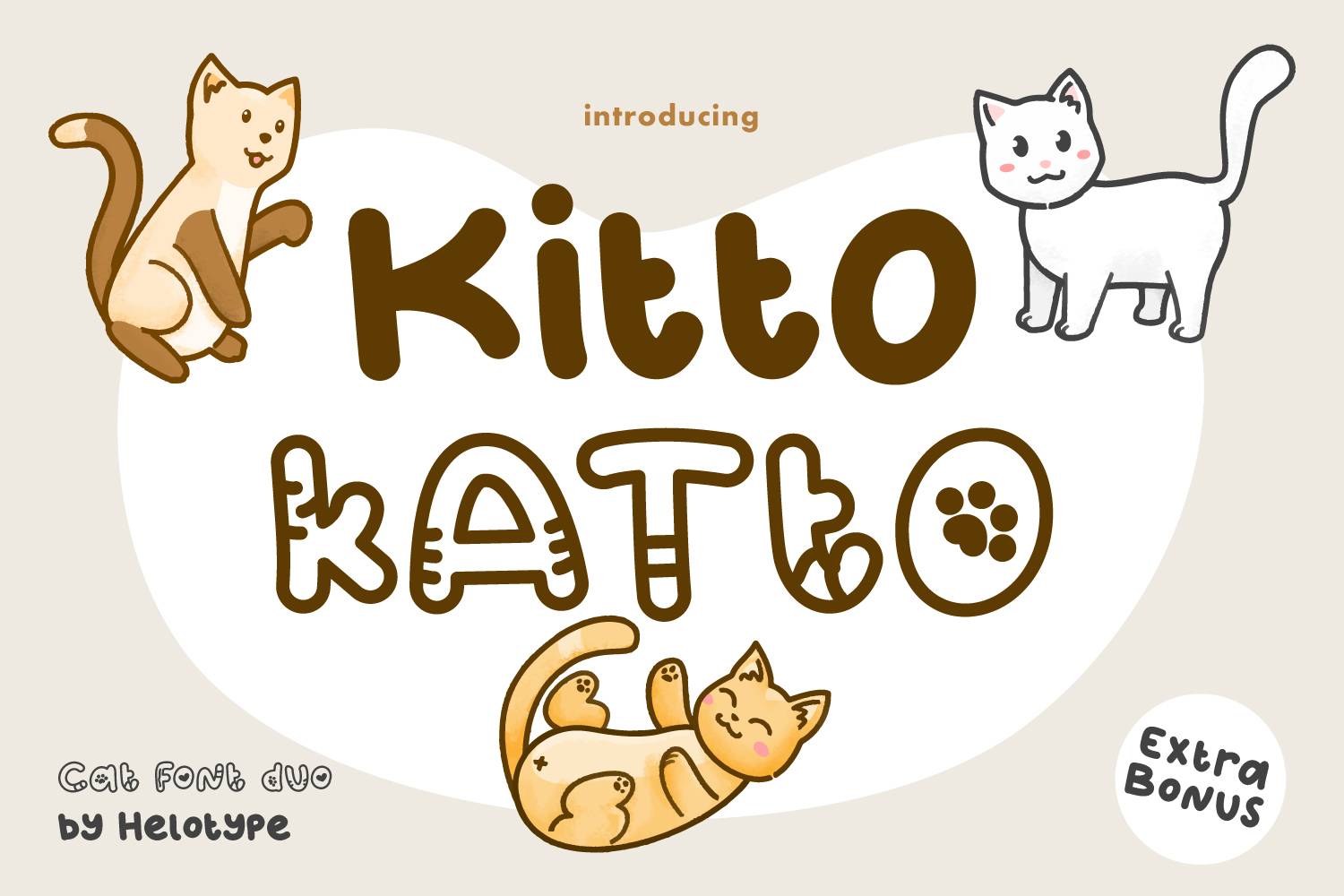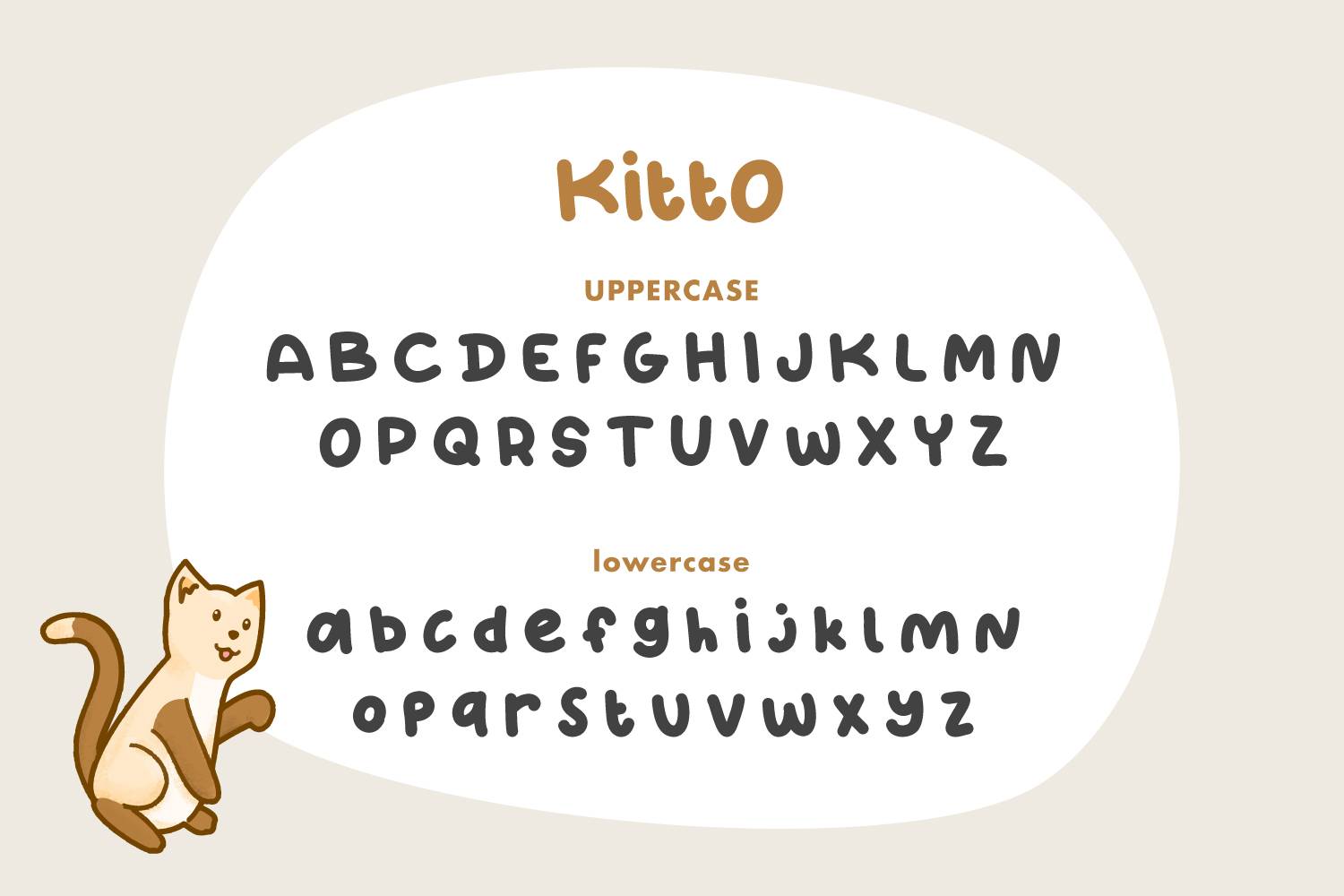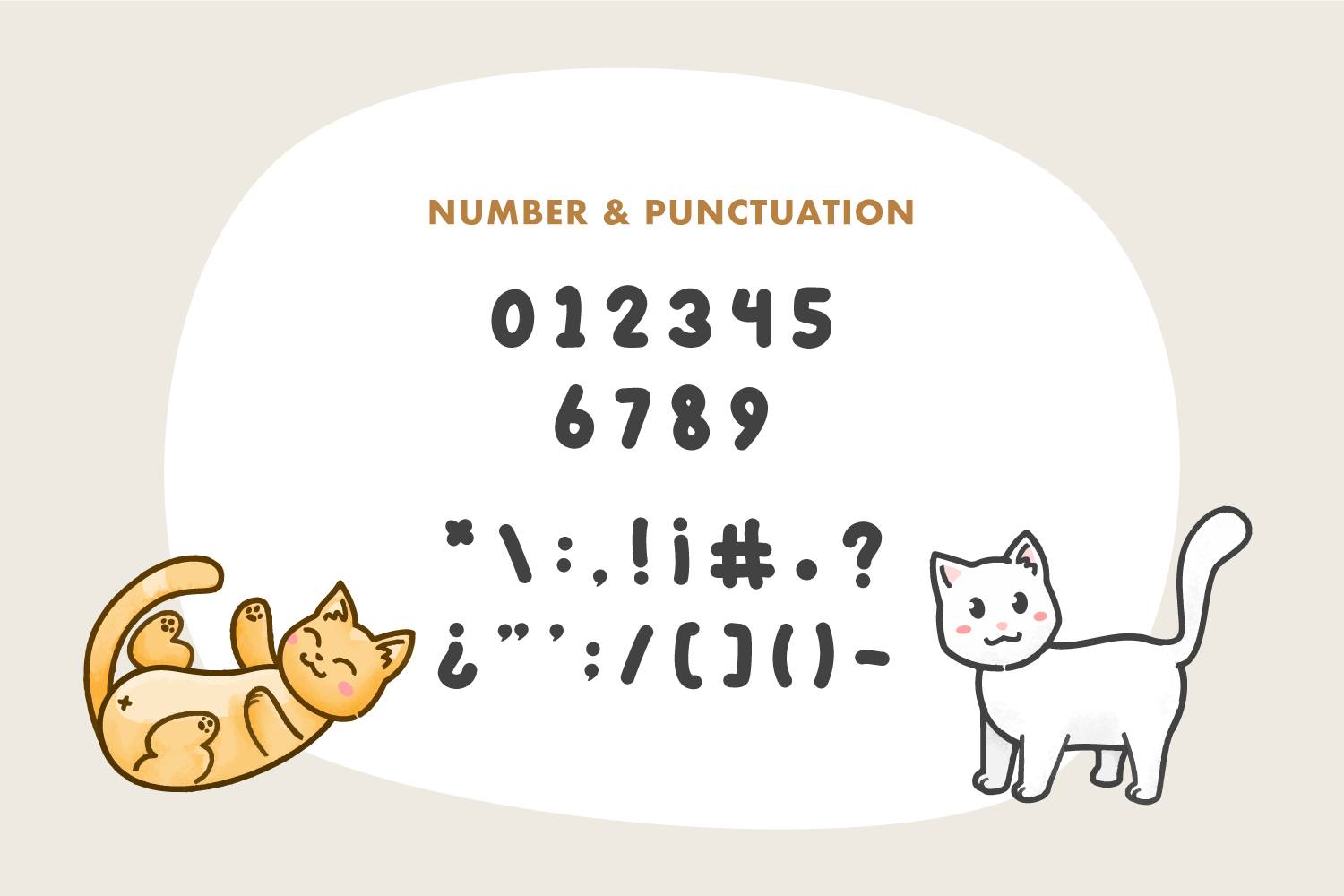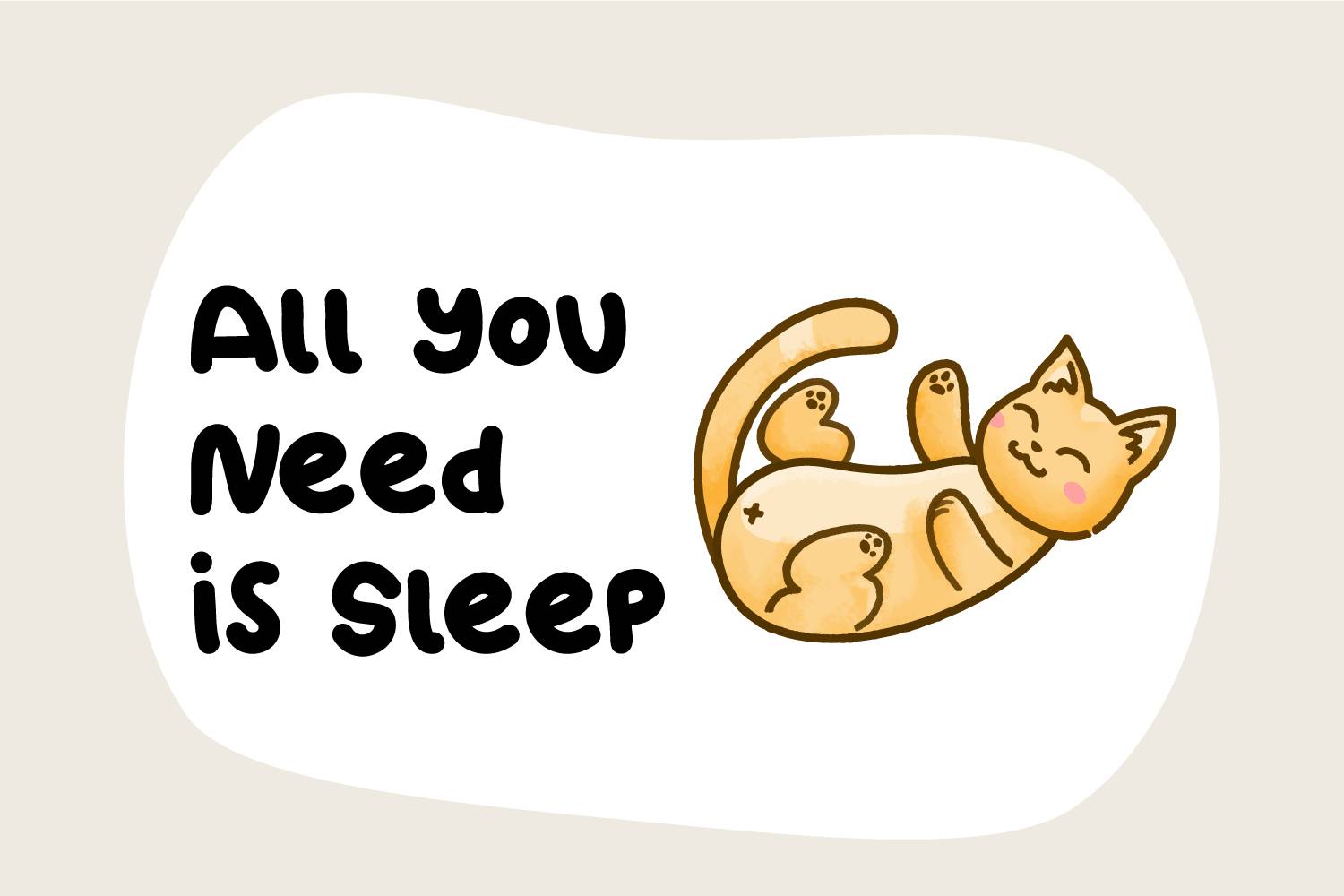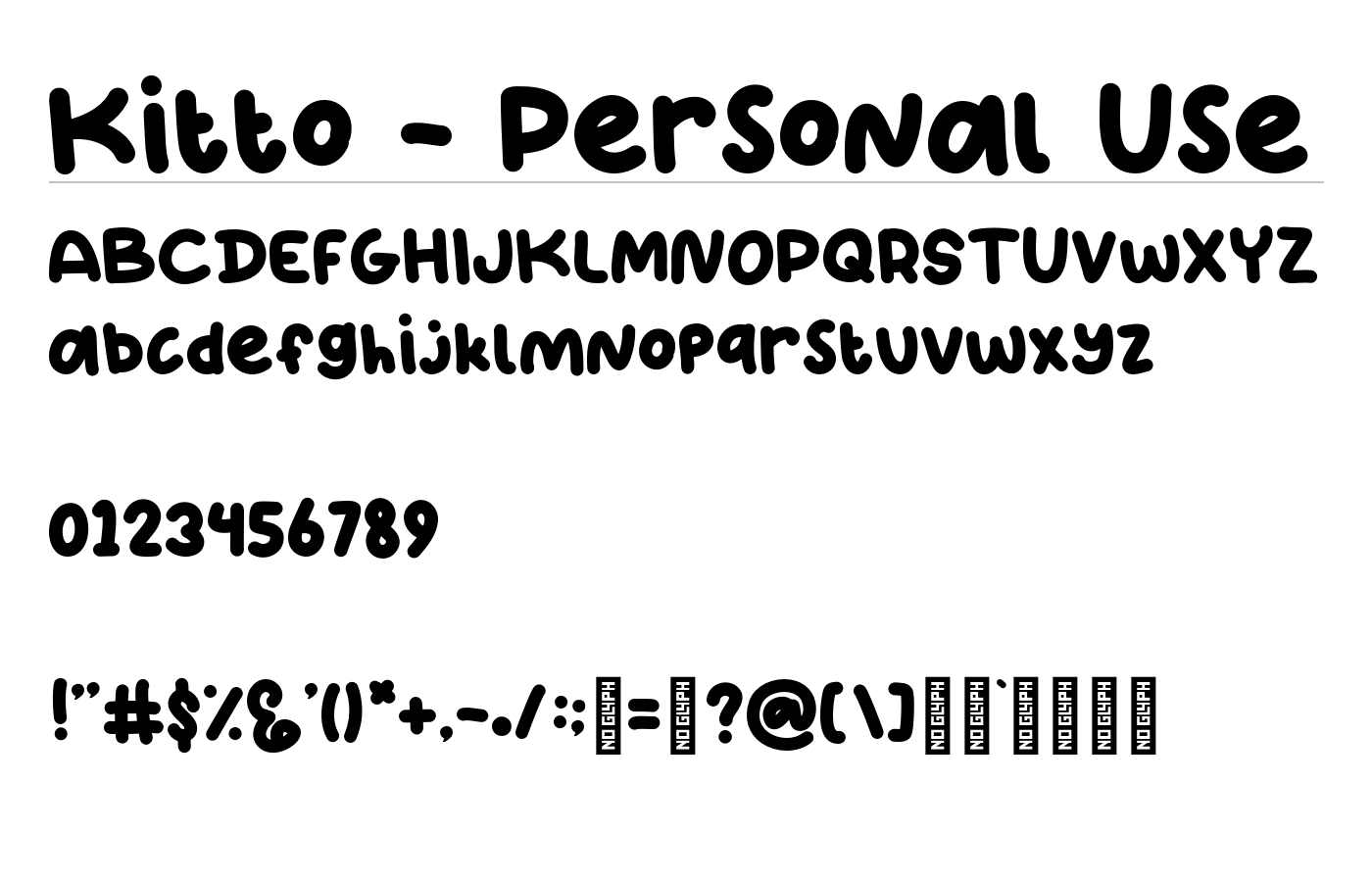
Kitto Cute is a playful and rounded sans serif font with a casual, handwritten feel characterized by its bold weight and uneven, organic shapes. Its lively letterforms and friendly vibe make it perfect for children's books, informal branding, or fun, approachable designs where personality and warmth are key. This font works best in headlines, posters, and creative projects seeking a charming and whimsical touch.
Kitto Cute Font
About Kitto Cute Font